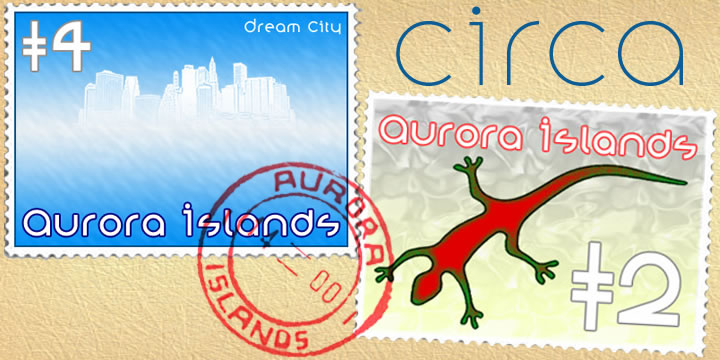
Circa
Circa is a display sans and art deco font family. This typeface has three styles and was published by K-Type.
A geometric family inspired by lettering in a furniture advertisement on the wall of a Paris Metro
station.
A geometric family inspired by lettering in a furniture advertisement on the wall of a Paris Metro
station. And circles in general. Maybe a hint of Bauhaus snuck in too. This face has a dangerously
large x-height that could prove hazardous to inexperienced typographers